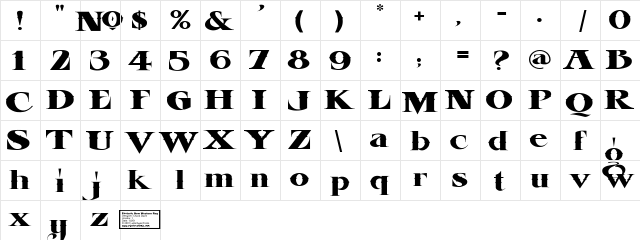
LHFEsotericNewWesternReg Medium
Design Context for LHFEsotericNewWesternReg Typeface
LHFEsotericNewWesternReg echoes the hand-painted signage and woodblock typography of the American frontier, with a warm, rugged personality.
A natural fit for craft spirits, ranch branding, rodeo events, and Americana-inspired design work.
Font Pairing: Combine LHFEsotericNewWesternReg with a simple slab or neutral sans — period-accurate companions reinforce the vintage feel without competing for attention.
Pro Tip: Use LHFEsotericNewWesternReg for short, impactful bursts of text — it shines in poster headlines and product names rather than extended copy.